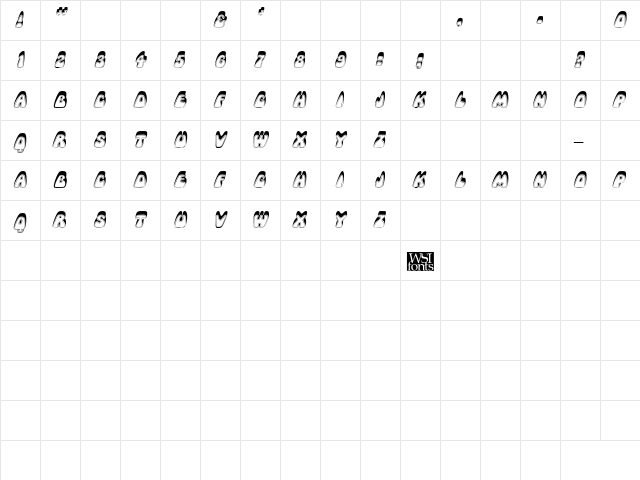
LoppDisplay Italic
Design Context for LoppDisplay Typeface
LoppDisplay brings ornamental detail and strong personality to headlines and identities, where visual impact matters more than quiet functionality. The dynamic lean of this cut emphasises speed and emphasis in any layout.
Font Pairing: Pair with a clean neutral sans-serif for body copy to let LoppDisplay's character lead without overwhelming the composition.
Pro Tip: Use LoppDisplay exclusively at display sizes — it was designed to be seen, not read at length. Let a neutral companion handle body copy.